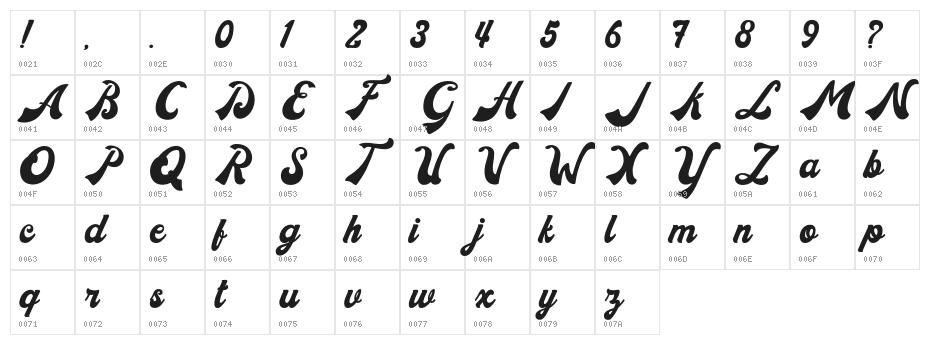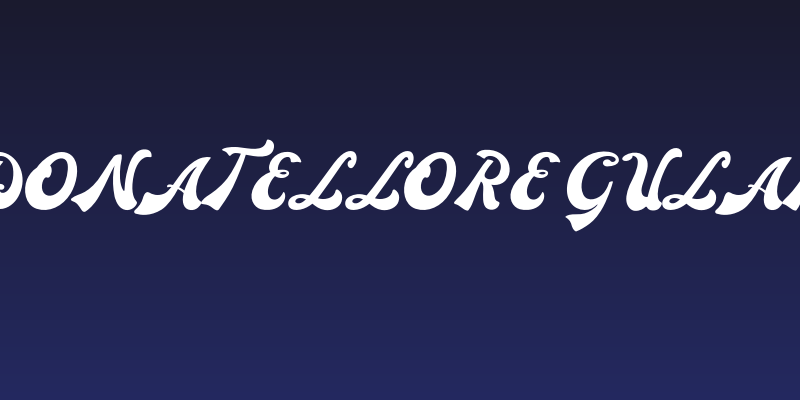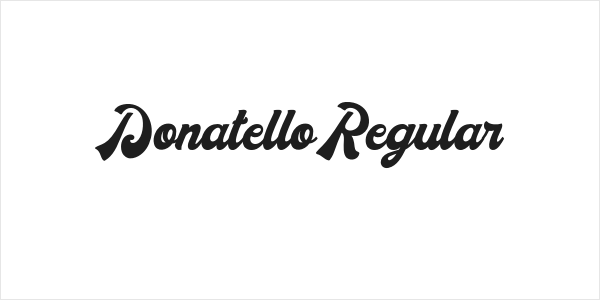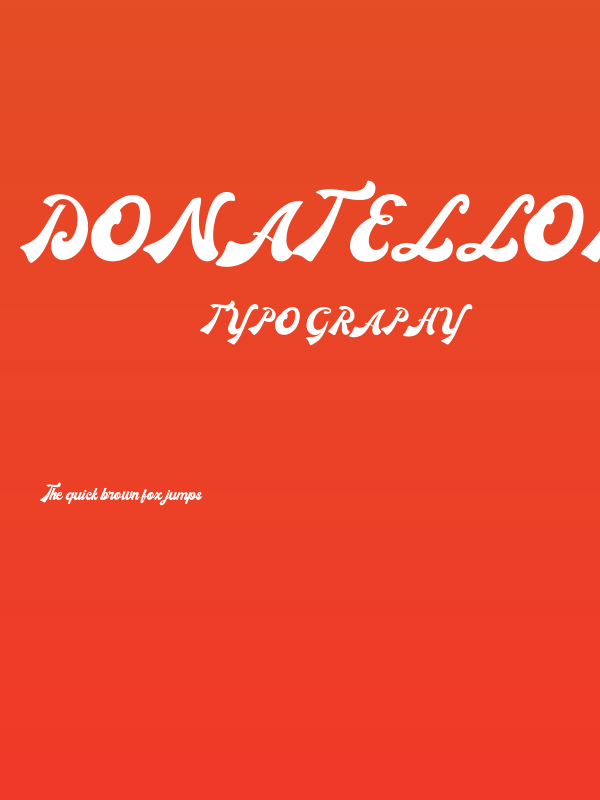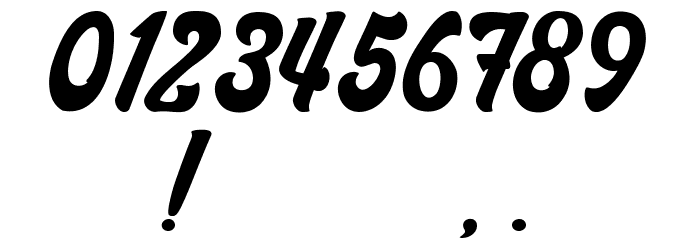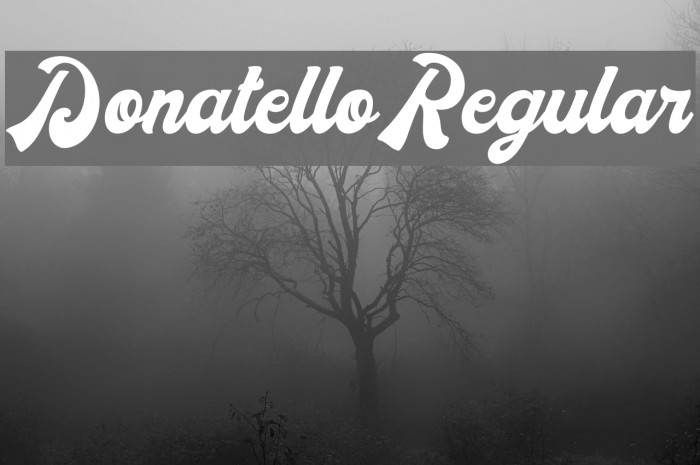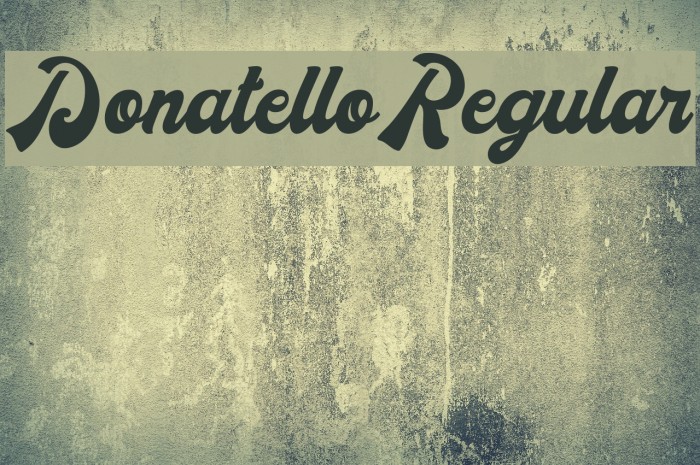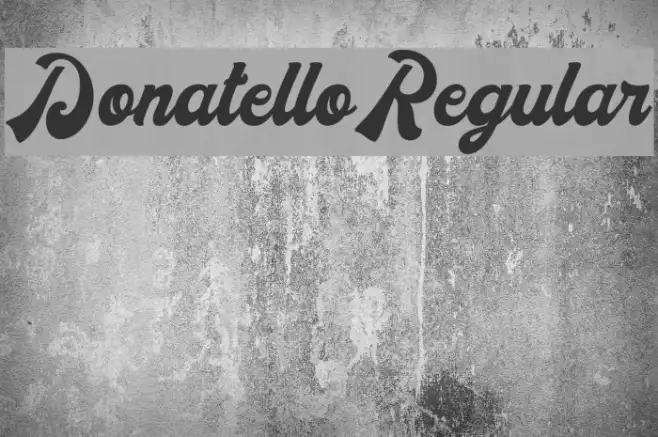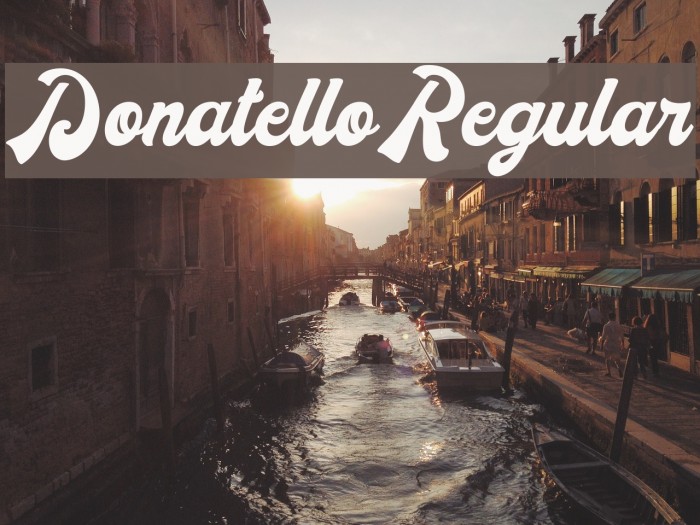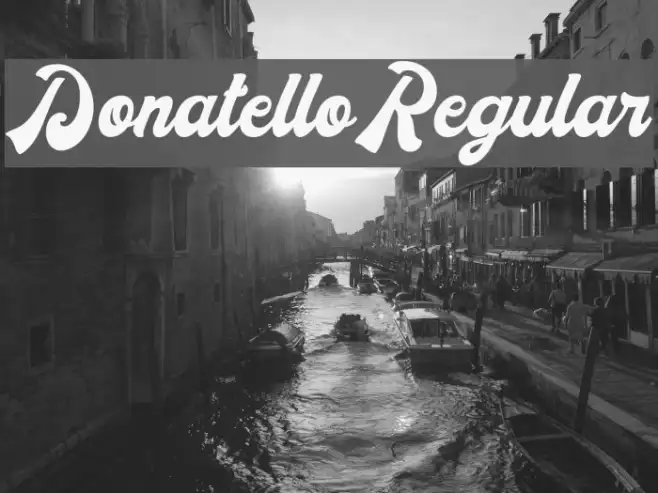
DonatelloRegular Font
DonatelloRegular Description
This font features a bold and dynamic script style with a strong, flowing character. The uppercase letters are elegantly curved with a sense of movement, while the lowercase letters maintain a consistent rhythm, enhancing readability. The numerals are robust and match the overall aesthetic, providing a cohesive look. Special characters are designed with flair, adding to the font's expressive nature. The strokes are thick, contributing to a high contrast that makes the font stand out, ideal for making a statement.
| Use Case | Logos, Headlines |
| Proposed Projects | Perfect for branding, logos, headlines, and any project requiring a bold, expressive touch. |